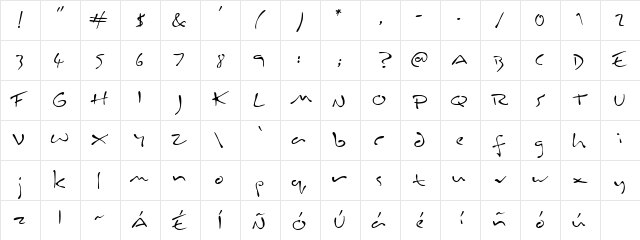
Inkburrow Regular Free Font
Inkburrow Regular
Inkburrow Family
Inkburrow Regular
Complete Inkburrow Regular glyph index. Displaying only characters natively supported by Inkburrow Regular font.
Design Context for Inkburrow
Inkburrow is a composed and adaptable typeface that performs quietly and consistently across a wide range of design contexts.
Pro Tip: Use Inkburrow in both headline and body roles to test its range before committing to a single application.